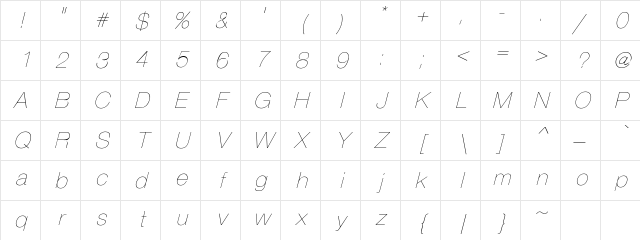
Bern Oblique Very Lite Regular
Design Context for Bern Oblique Very Lite
Bern Oblique Very Lite is a composed and adaptable typeface that performs quietly and consistently across a wide range of design contexts. The slanted form adds forward momentum and visual energy.
Pro Tip: Use Bern Oblique Very Lite for emphasis, pull quotes, and subheadings where its slanted energy can add rhythm to the layout.